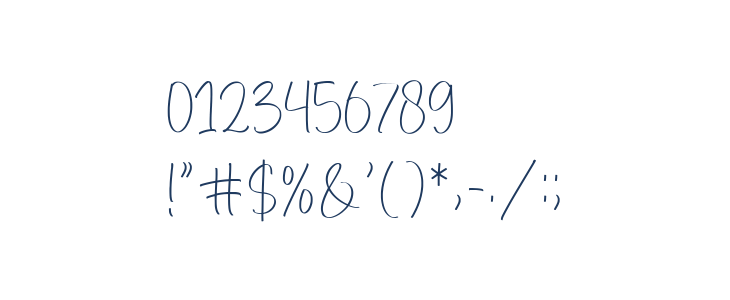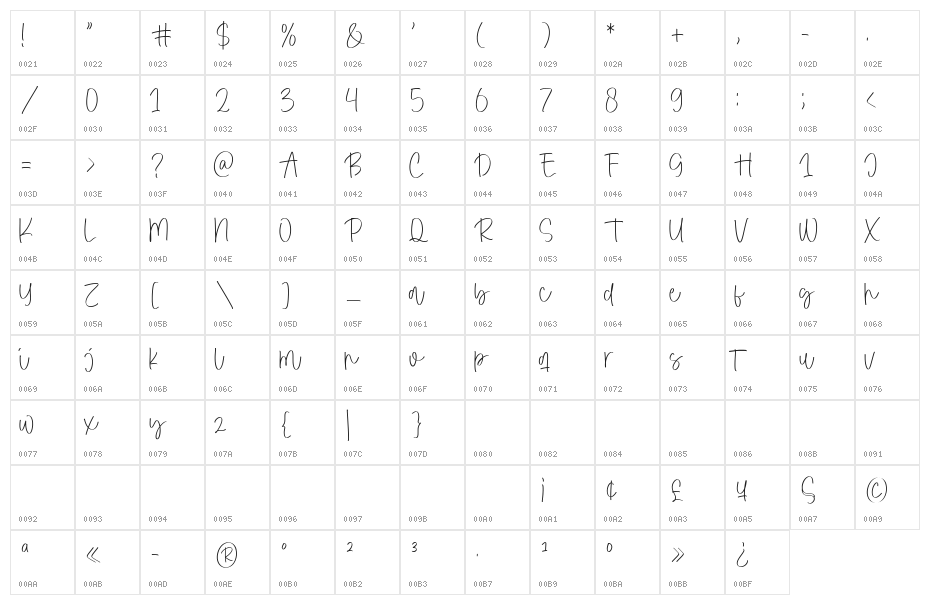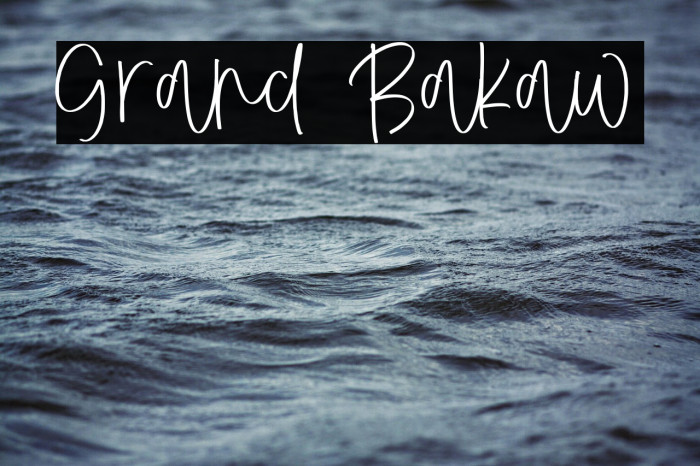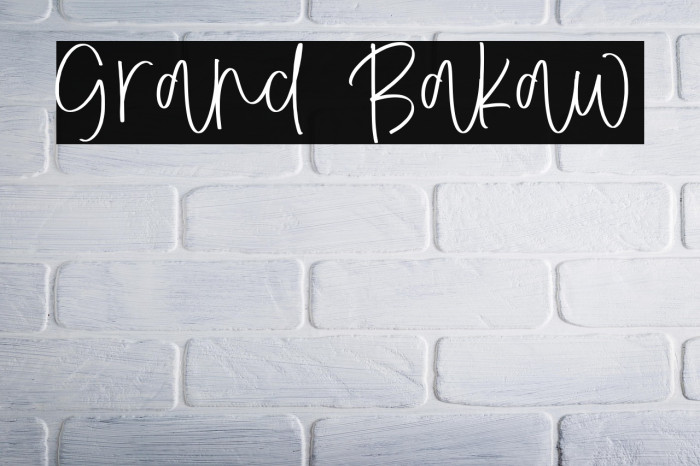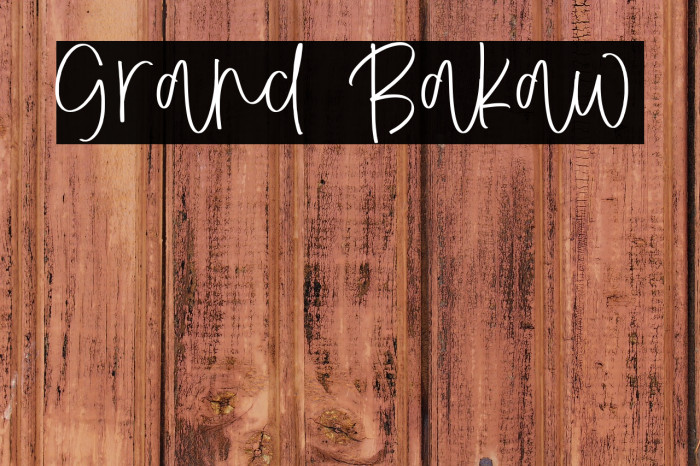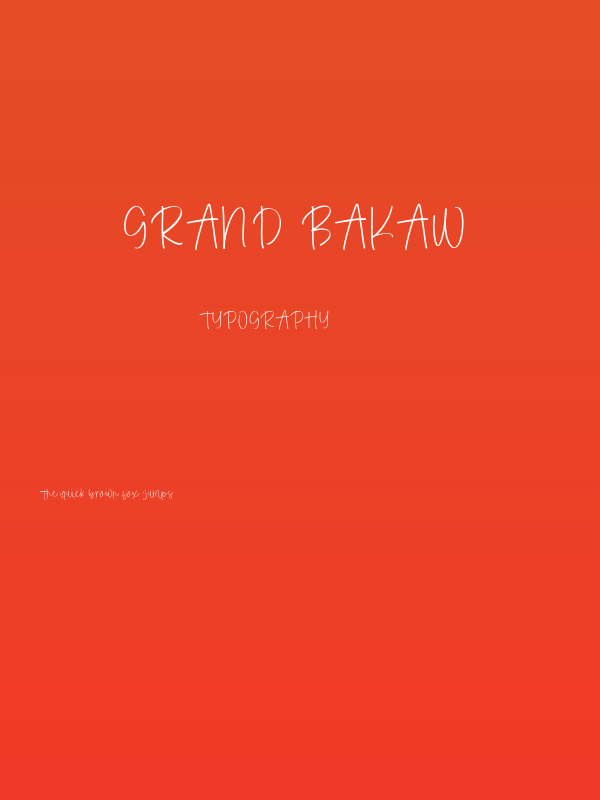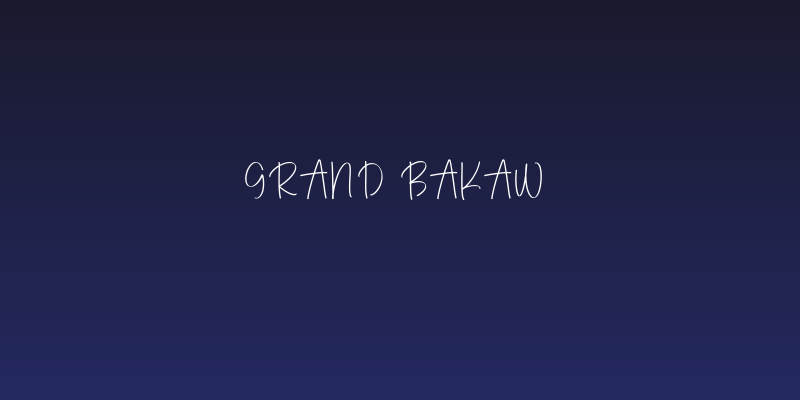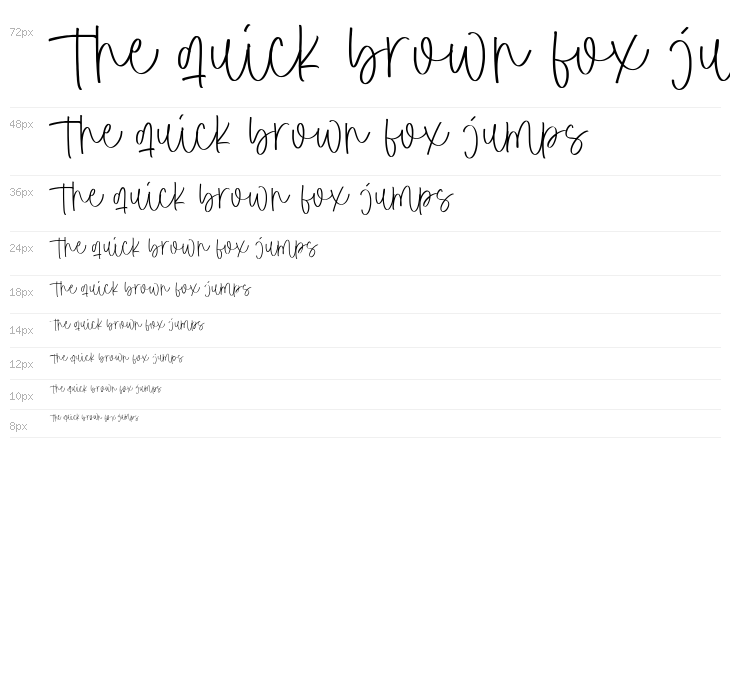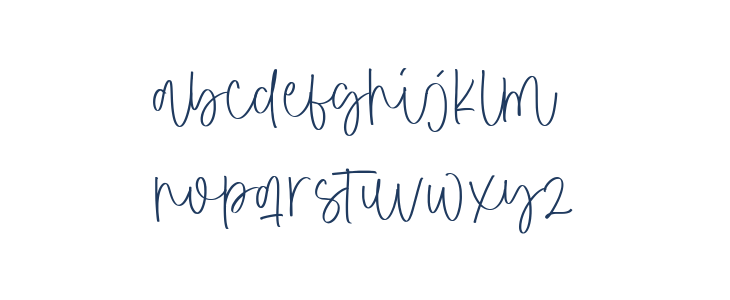
Grand Bakaw Font
Grand Bakaw Description
This font features a playful and casual handwritten style, characterized by its fluid and organic strokes. The letters are slightly slanted, giving it a dynamic and lively appearance. The uppercase letters are tall and narrow, while the lowercase letters maintain a consistent flow with rounded edges. The numbers are clear and legible, matching the overall aesthetic of the alphabet. Special characters are creatively integrated, maintaining the font's whimsical nature. This font is perfect for projects that require a personal touch, such as invitations, greeting cards, or creative branding.